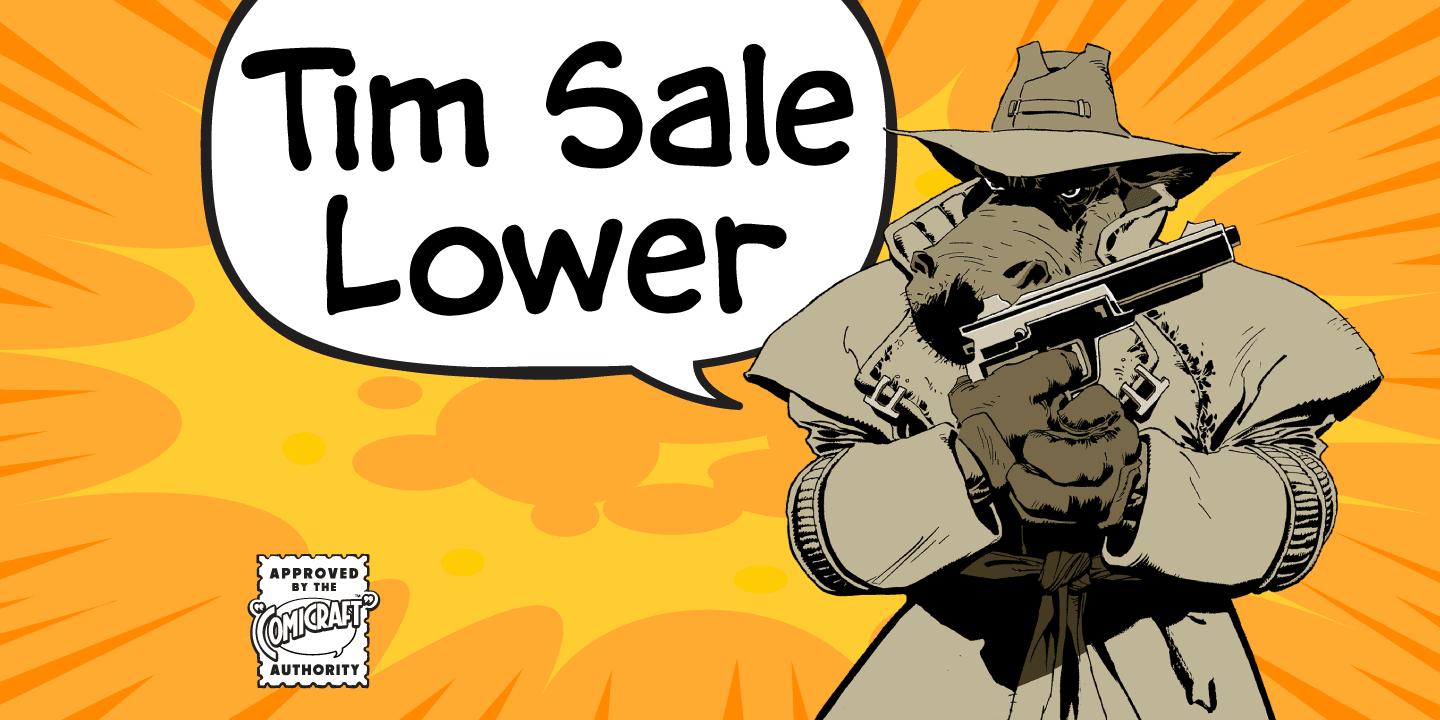
Tim Sale Lower Font is ideal for comic book lettering, graphic novel titles, superhero merchandise, pop culture campaigns, artistic publications, creative studio branding, animation project credits, indie comic materials, character-driven narratives, and expressive applications that celebrate the dynamic artistry and storytelling power of sequential art and graphic storytelling.
What makes Tim Sale Lower Font truly exciting is its authentic capture of comic book artistry and narrative expression that brings the distinctive energy and emotional depth of graphic storytelling directly to typography. This exceptional typeface embodies the spirit of sequential art with its expressive letterforms and character-driven design that convey both artistic authenticity and storytelling power. The font's comic book heritage and narrative personality make it perfect for projects seeking to communicate creative storytelling, artistic expression, and the dynamic visual language that makes graphic narratives so compelling and emotionally engaging.
The Tim Sale Lower Font family includes multiple weights and styles: Regular, Bold, Light, Condensed, and Expressive variations designed for maximum comic impact. Each family member maintains the distinctive comic book character while offering flexibility for diverse storytelling applications and artistic branding systems. The comprehensive character set supports narrative typography needs and comic design elements, making it suitable for international graphic storytelling communications.
When you choose Tim Sale Lower Font Free Download, you're selecting a typography hero that delivers authentic comic book credibility and artistic storytelling excellence. This expressive typeface excels in applications where narrative power and artistic authenticity are paramount, delivering exceptional visual character while maintaining comic book legitimacy. Whether you're designing comic materials, graphic novels, pop culture brands, or artistic campaigns, this font provides the comic book authenticity and storytelling power that resonates with readers and creators who appreciate genuine artistic expression, narrative depth, and the transformative magic of visual storytelling.